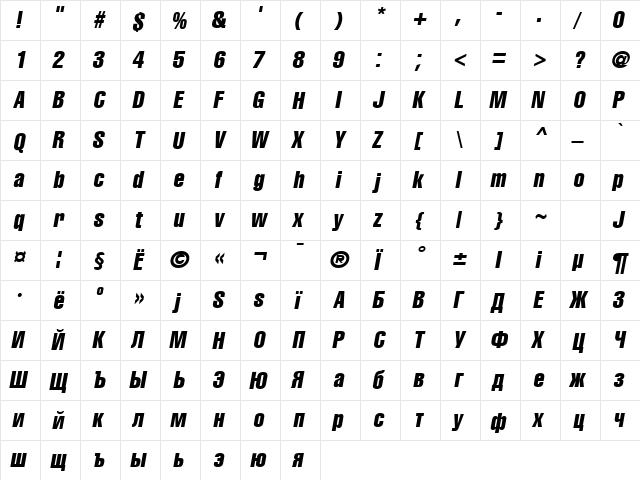
Letterica Compressed ic
Design Context for Letterica Compressed Typeface
Letterica Compressed takes a measured approach to typography — its balanced proportions and neutral character make it a reliable workhorse for both digital and print work.